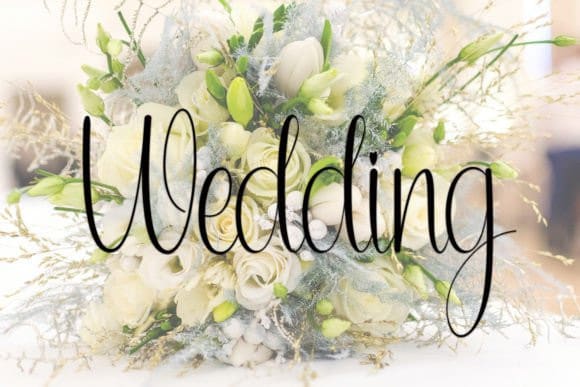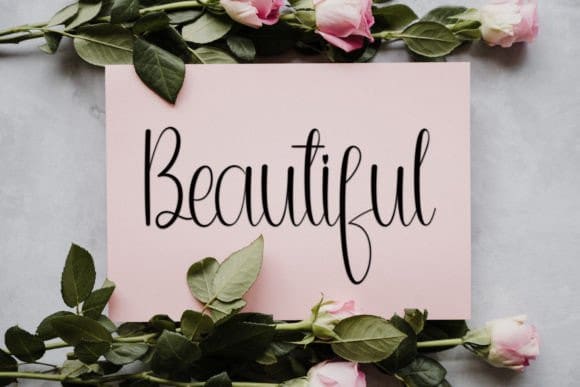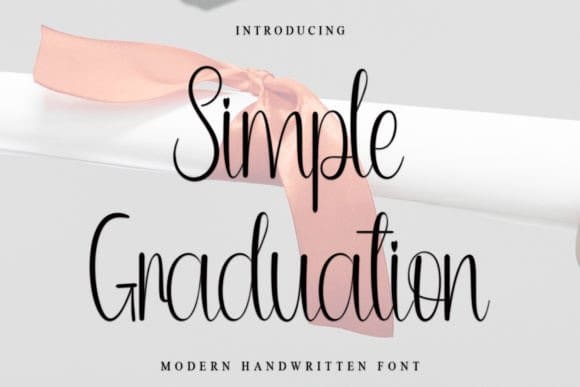
Simple Graduation Font
Simple Graduation Font is a magical script font carefully created with a touch of elegance.
Whether you’re looking for fonts for Instagram or calligraphy scripts for DIY projects, this font will turn any creative idea into a true piece of art! Fall in love with its incredibly distinct and timeless style, and use it to create spectacular designs!